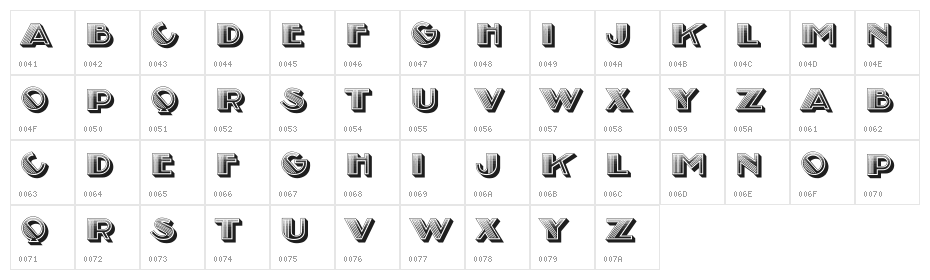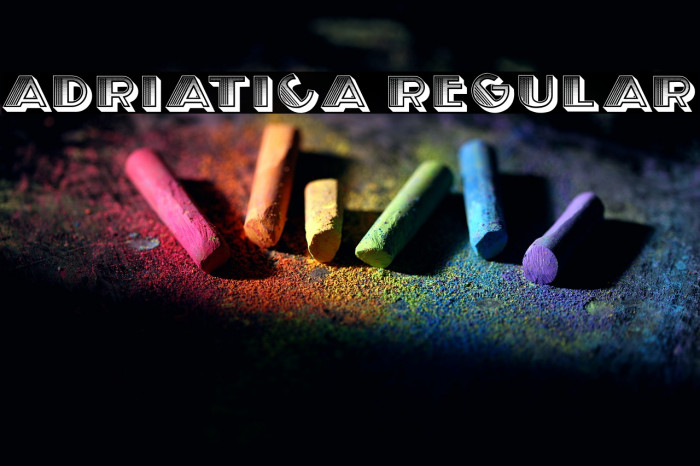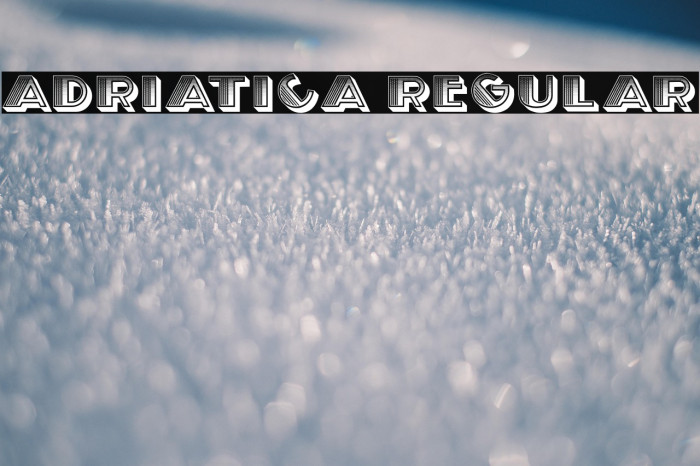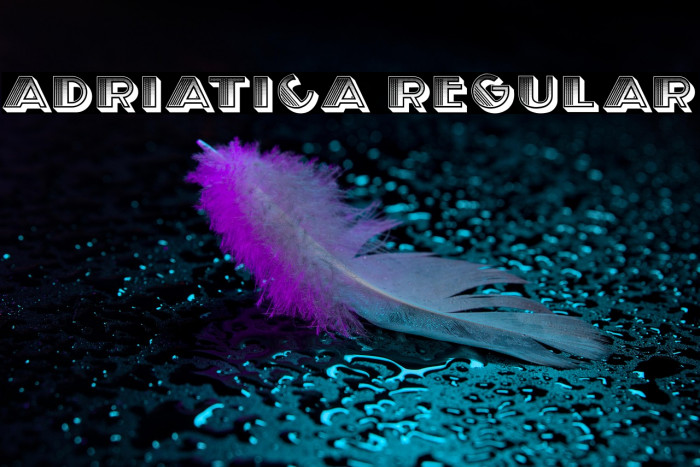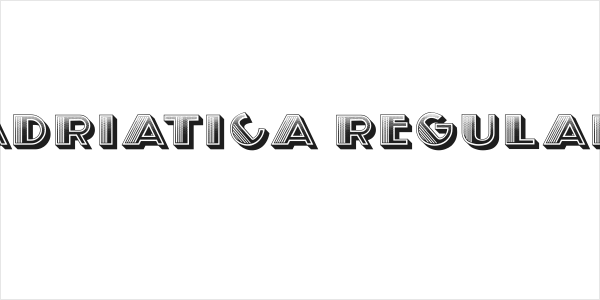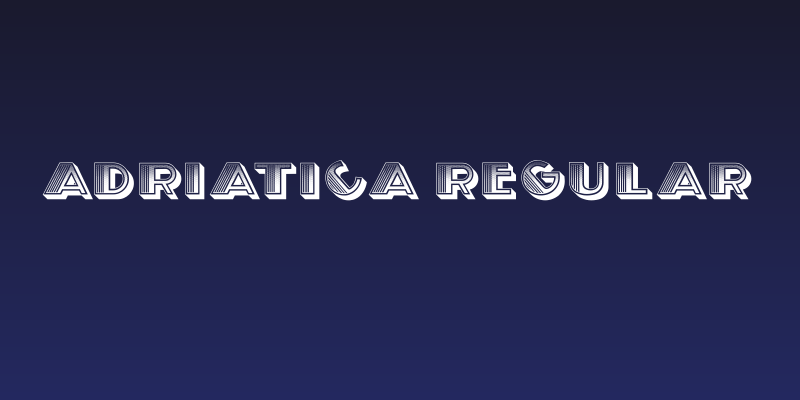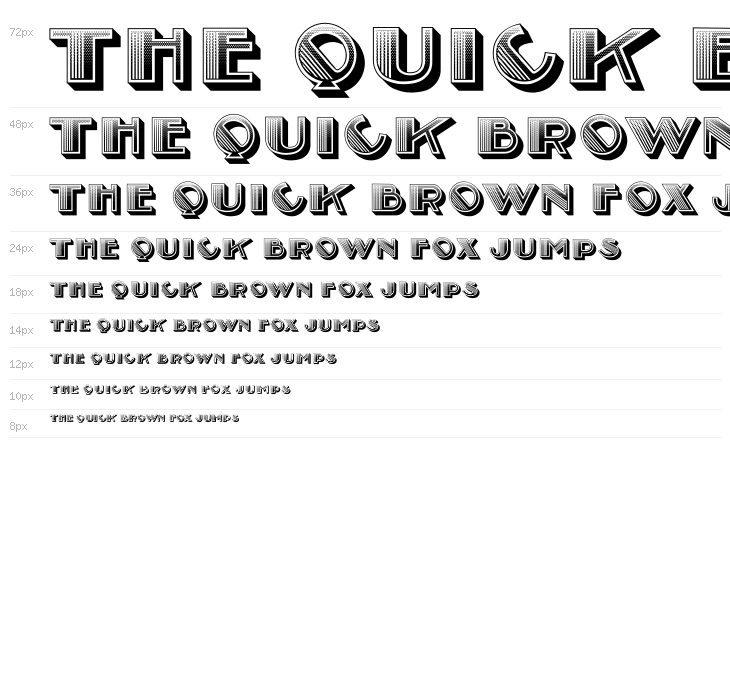
Adriatica Regular Font
Adriatica Regular Description
This font features a bold and striking design with a 3D effect created by layered lines and shadows. Each character is meticulously crafted to give a sense of depth and dimension, making it stand out prominently. The uppercase letters are uniform in height, with consistent geometric shapes that convey a sense of modernity and sophistication. The intricate detailing within each letter adds a decorative flair, making it suitable for eye-catching designs. The overall aesthetic is both contemporary and artistic, ideal for projects that require a bold statement.
| Overall Style | Modern, Decorative |
| Proposed Projects | Ideal for branding, poster design, headlines, and any project requiring a bold, artistic touch. |